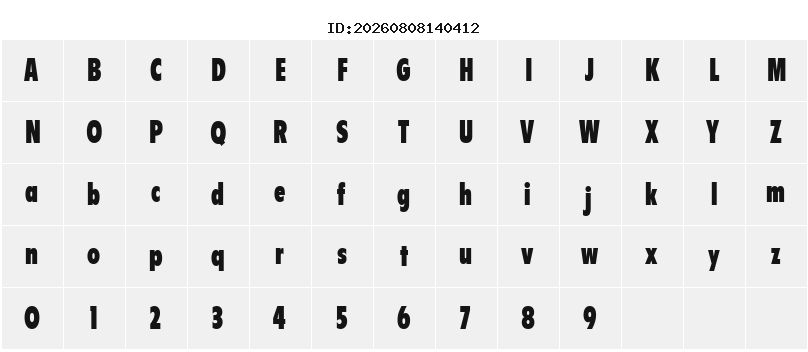
• Font Name: Policy
Policy.ttf is a modern, elegant sans-serif font designed for ultimate readability and visual harmony. Perfect for branding, headlines, web design, and print materials.